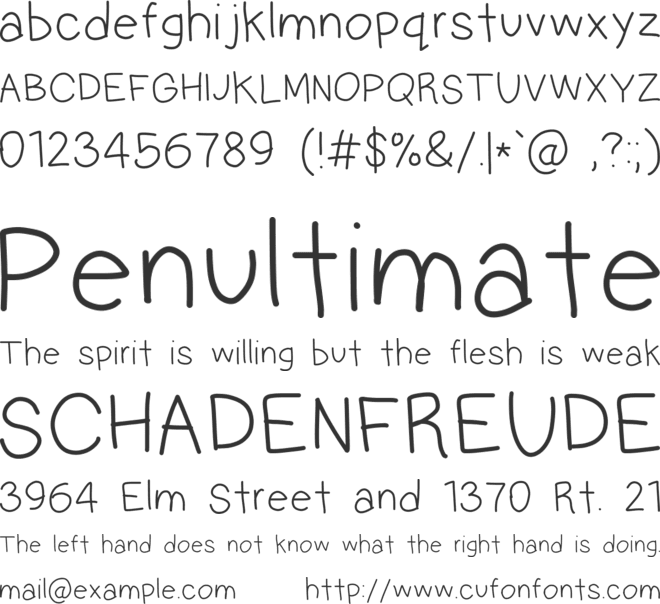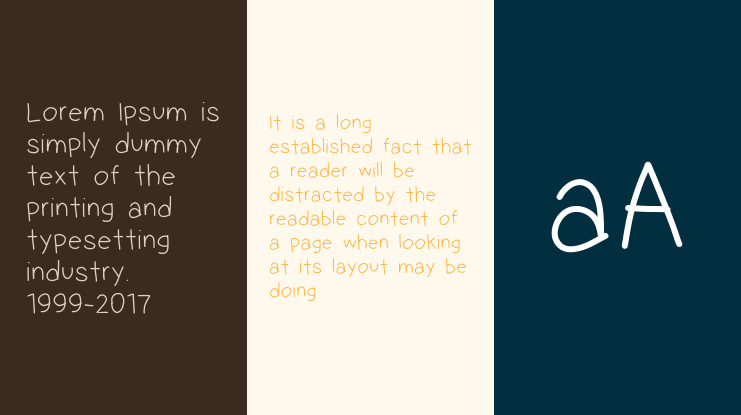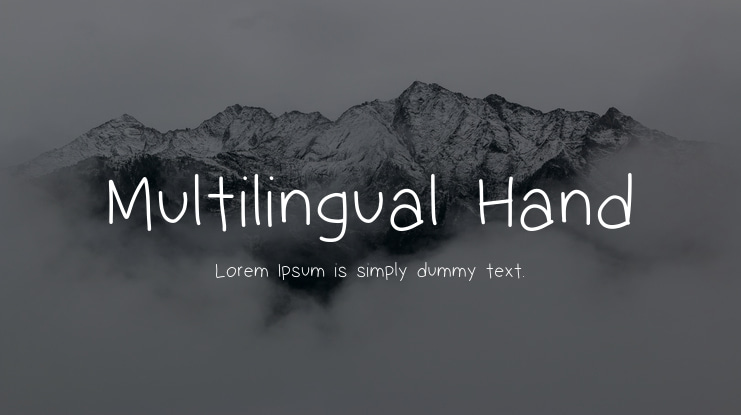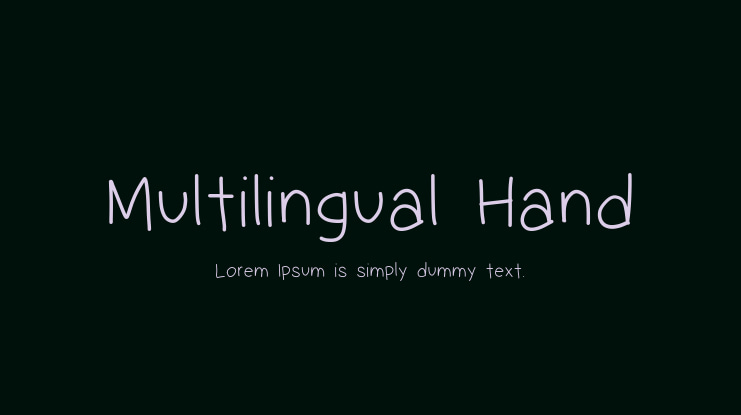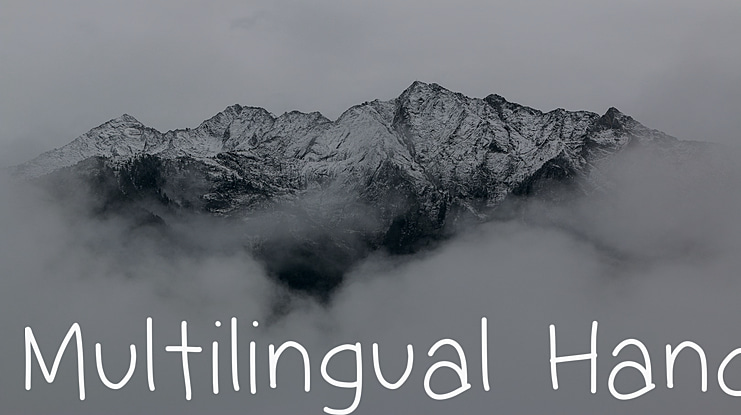
Multilingual Hand Font
I created this font after finding that the majority of fonts on dafont are made for people who speak english, and I realized there are people in other countries who need a good font to use... so I created Multilingual Hand. It's a free handwritten font with over 220 characters. Enjoy.